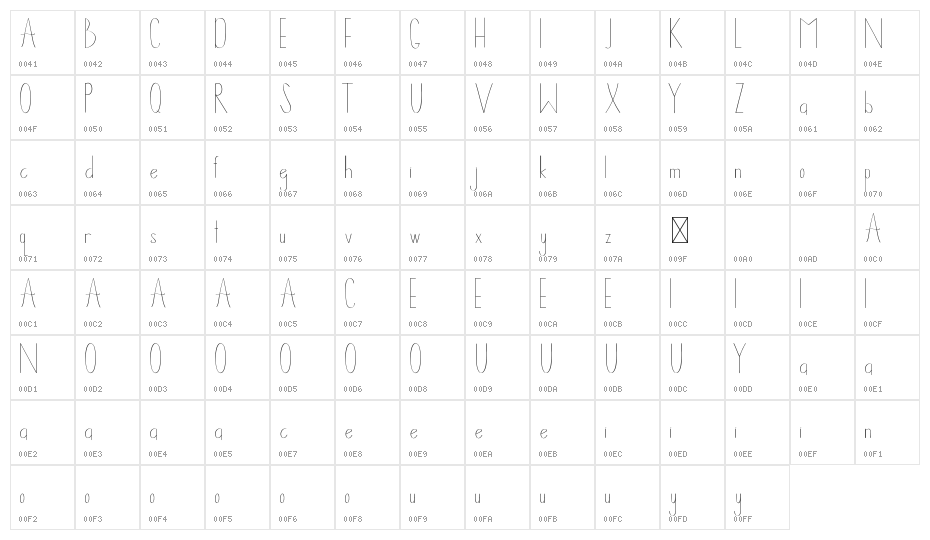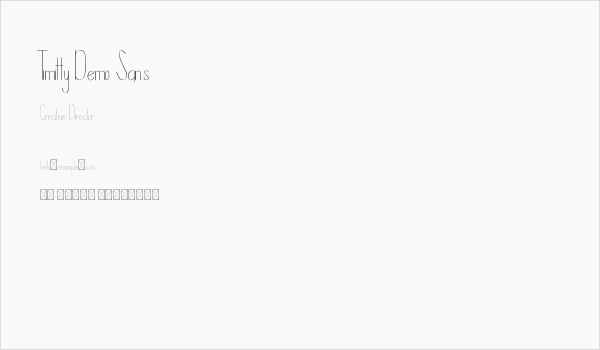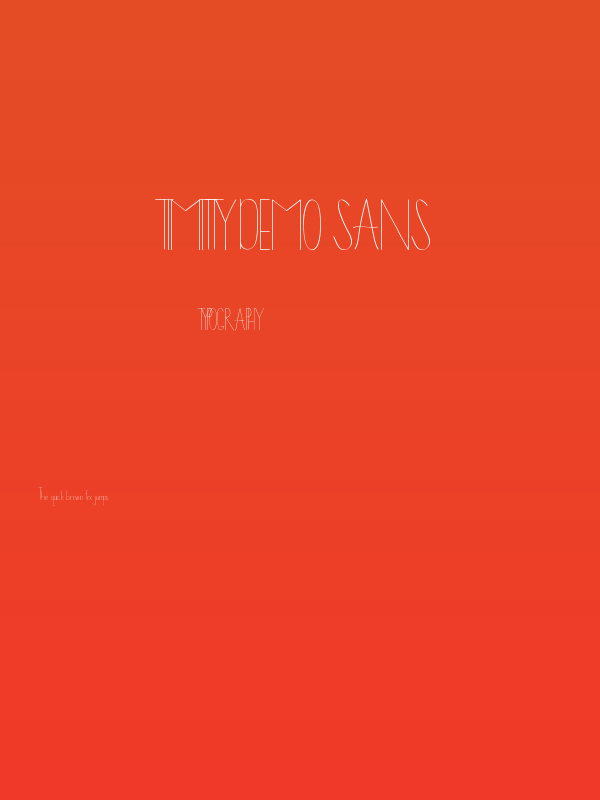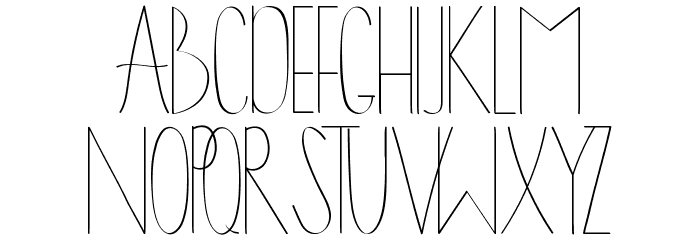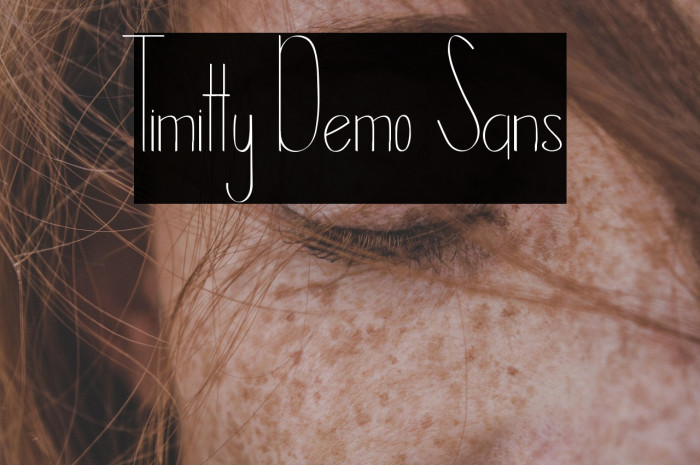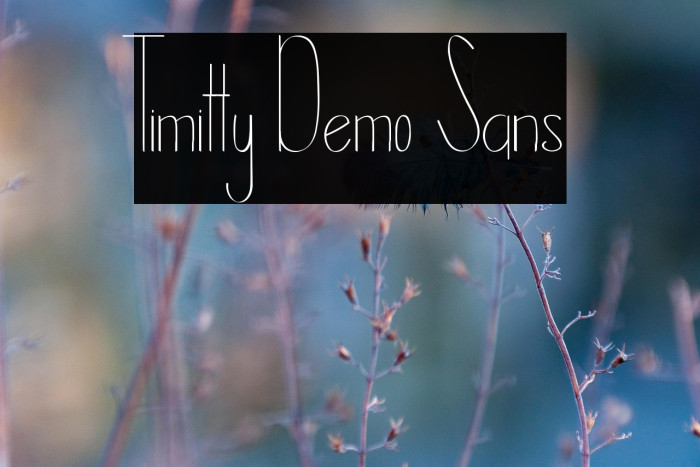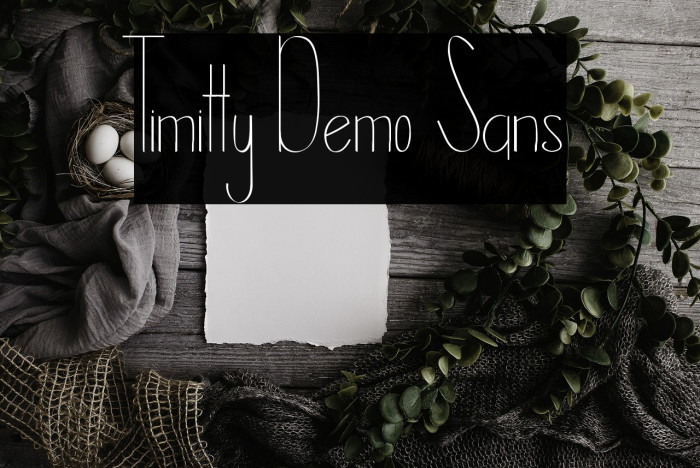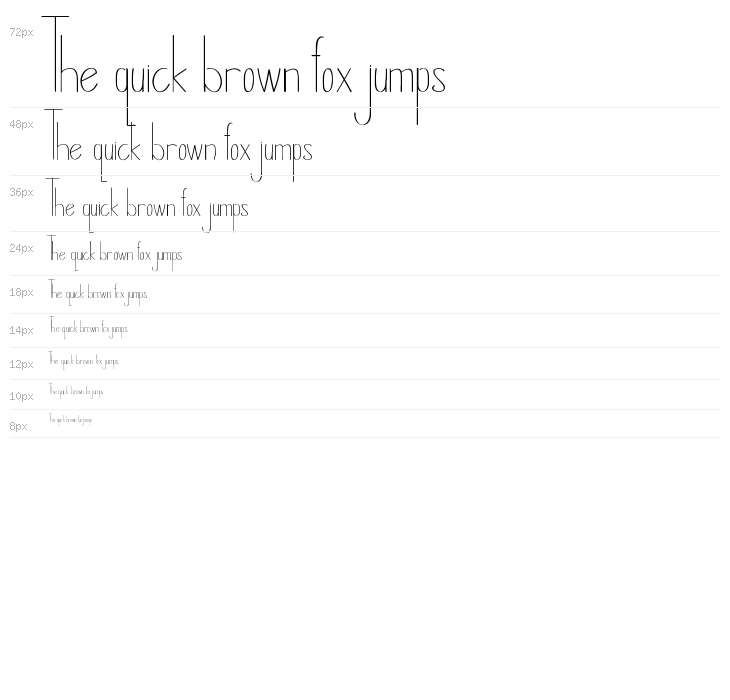
Timitty Demo Sans Font
Timitty Demo Sans Description
This font features a tall, slender design with elongated characters that give it a modern and elegant appearance. The strokes are consistent in thickness, providing a clean and minimalist look. The uppercase letters are particularly striking, with their extended vertical lines and narrow width, creating a sense of sophistication and style. The lowercase letters maintain the same slender proportions, ensuring a cohesive appearance across different text sizes. The font's overall aesthetic is both contemporary and timeless, making it versatile for various design applications.
| Proposed Projects | Ideal for fashion magazines, luxury branding, wedding invitations, and high-end product packaging. |